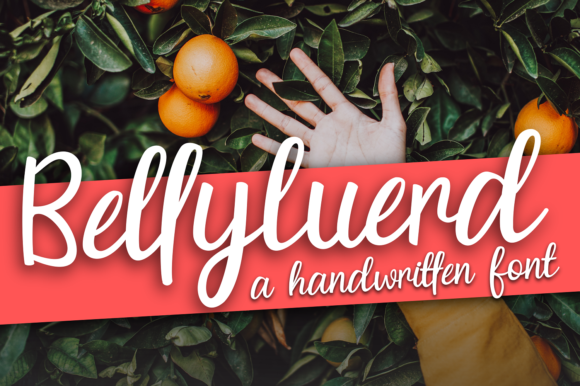
The Ultimate Guide to Bellyluerd Font: Adding a Playful Twist to Your Designs
I’ll never forget the time I was working on a project for a children’s book, and I was struggling to find the perfect font to bring the story to life. The client wanted something playful, dynamic, and eye-catching, but I was coming up blank. That’s when I stumbled upon the Bellyluerd font, and it completely transformed my design. In this article, I’ll share my experience with this gorgeous script font and provide a comprehensive guide on how to make the most of its unique features.
An Honest Review of Bellyluerd Font
What I Love About Bellyluerd Font
- ✨ Unique and playful personality that adds a touch of whimsy to any design
- ✅ Incredibly dynamic and versatile, making it perfect for a wide range of projects
- 💫 Gorgeous script letters that are both elegant and fun
- 🎉 Excellent for use in titles, headings, and promotional materials
While Bellyluerd font is an amazing addition to any design project, there are a few things to keep in mind:
- 🤔 May not be the best choice for body text or long paragraphs, as it can be a bit challenging to read
- ⚠️ Some letters may not be suitable for use in small sizes, as they can become distorted
A Practical Guide to Using Bellyluerd Font
- Experiment with OpenType features, such as glyphs and stylistic alternates, to add more personality to your text
- Take advantage of OpenType features, such as ligatures and swashes, to add more flair to your text
The Story Behind Bellyluerd Font
Bellyluerd font was designed with the intention of creating a unique and playful script that would add a touch of whimsy to any design. The designer wanted to create a font that would be both elegant and fun, making it perfect for a wide range of projects, from children’s books to promotional materials.
| Author | Rvandtype |
| What is Bellyluerd font best used for? | Bellyluerd font is perfect for use in titles, headings, and promotional materials, where a playful and dynamic touch is desired. |
| Is Bellyluerd font suitable for body text? | No, Bellyluerd font may not be the best choice for body text or long paragraphs, as it can be a bit challenging to read. |